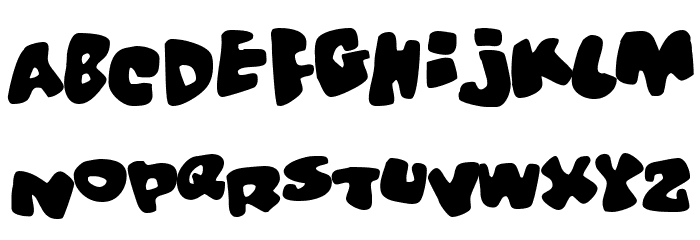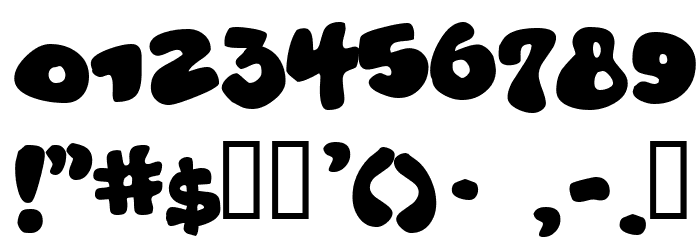
Vitamin Font
This playful and bold font features thick, rounded characters that convey a sense of fun and energy. The letters have a cartoonish, bubbly appearance, making them ideal for projects that require a lively and informal touch. The uppercase and lowercase letters maintain a consistent style, with exaggerated curves and a slightly uneven baseline that adds to the whimsical feel. The numbers and special characters are equally bold and rounded, ensuring a cohesive look across all text elements. The font's unique style makes it stand out, perfect for grabbing attention in creative designs.
A bold, playful font with rounded, cartoonish characters.
- Font: Vitamin
- Proposed Projects: Ideal for children's books, playful branding, party invitations, and comic-style graphics.
- Overall Style: Playful, Whimsical